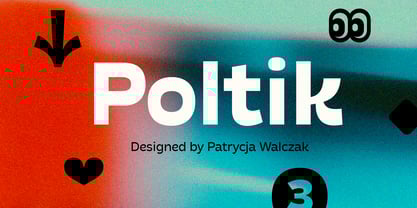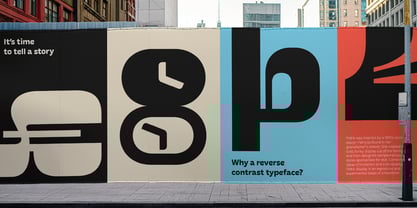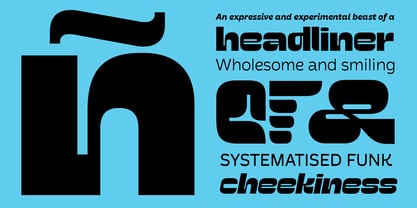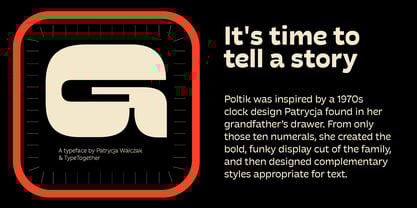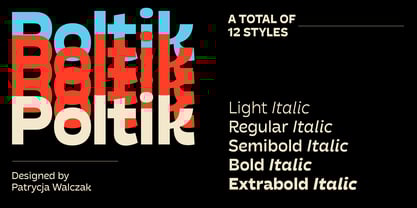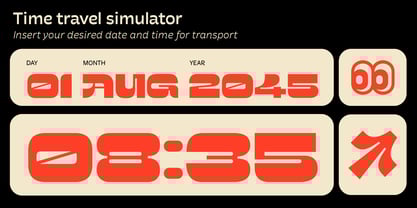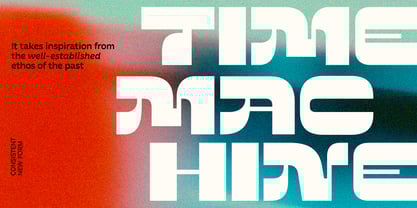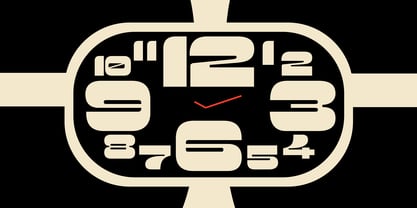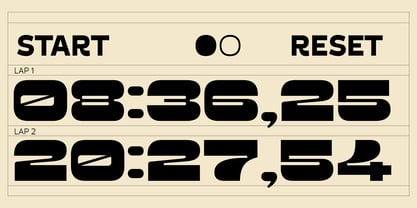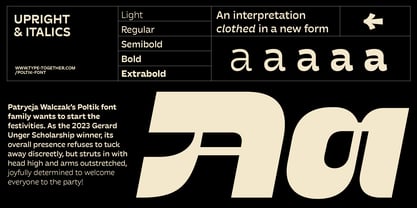
Poltik
by TypeTogether
The Poltik Font Family was designed by Patrycja Walczak and published by TypeTogether. Poltik contains 14 styles and family package options.
Patrycja Walczak’s Poltik font family wants to start the festivities. As the 2023 Gerard Unger Scholarship winner, its overall presence refuses to tuck away discreetly, but struts in with head high and arms outstretched, joyfully determined to welcome everyone to the party.
Poltik was inspired by a 1970s clock design Patrycja found in her grandfather’s drawer. From only those ten numerals, she created the bold, funky display cut of the family, and then designed complementary styles appropriate for text. Combining ideas of brutalism and individuality, Poltik display is an expressive and experimental beast of a headliner with a regular and italic style. Large formats like posters and website headers are its natural environment, and it grabs the limelight by having just enough quirks to hold attention.
Its ten text styles (five upright with matching italics) are a reversed contrast sans serif for many uses, and as such, all Poltik’s sediment has settled in the northern and southern hemispheres of each glyph. It exhibits its style as a readable and reliable sans that is wholesome and smiling, and shows more of its innate character the bolder it gets. Two variable fonts allow for almost infinite styles for complete control in a smaller data package.
Poltik has systematised cheekiness and funk to be as strong in functional ability as it is in aesthetics. For instance, the counters within the ‘e, a’ interact with each other and the ‘K, R’ retain their swooped leg throughout the family, allowing them to sway next to their other cheerful partners. Poltik’s mesmerising nature is ideal for concept store signage, a coffee shop, restaurant, or retro furniture store. It has as much potential for packaging, book covers, and magazines as it does for album covers, posters, and branding. And it harnesses all these powers in the digital world as much as in the physical one.
Poltik acts like a statement piece of furniture by adding something both intimate and immense to our recollection of 1960s and ’70s style. It takes inspiration from the well-established ethos of the past and expresses it as an interpretation clothed in a funky and consistent new form, welcoming all types to the party.